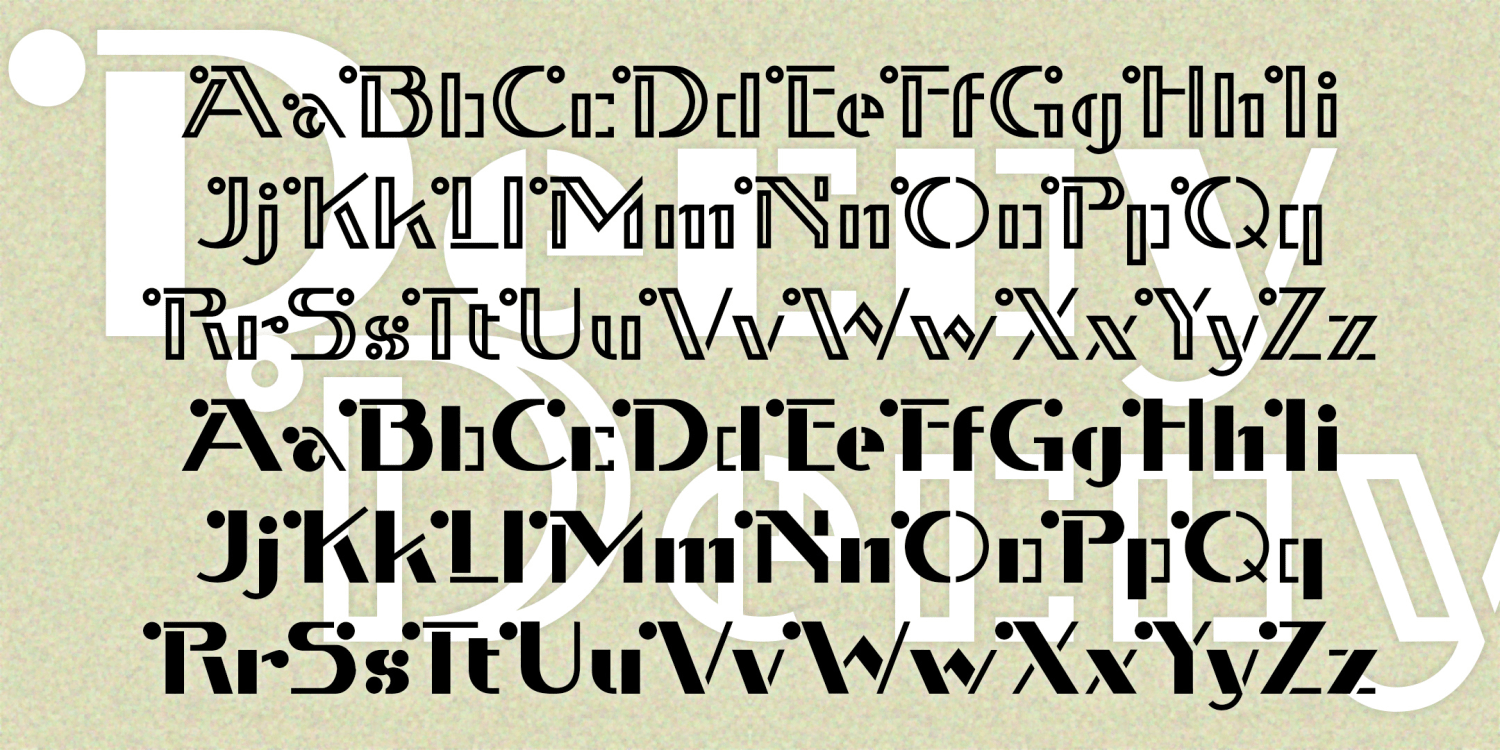
Decoy
Decoy is a bright geometric font with Art Deco flair. The Stencil version is solid, the Template is outlined. Both also come in an alternate version without the decorative circles on the caps. Decoy was inspired by one style of signature by the popular American artist, Norman Rockwell.